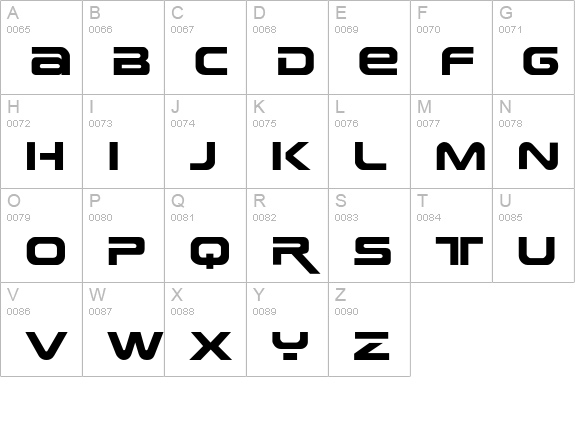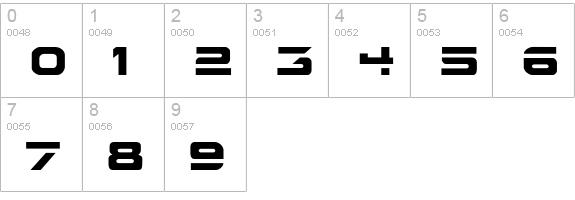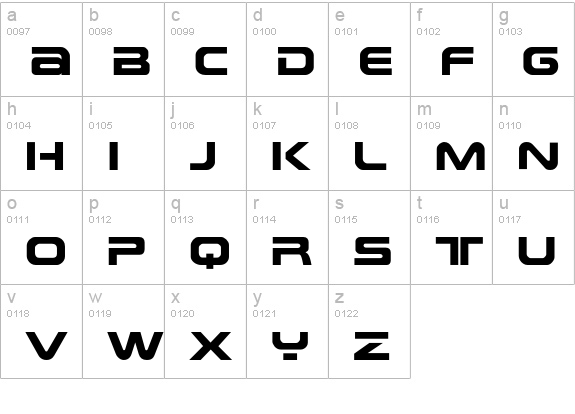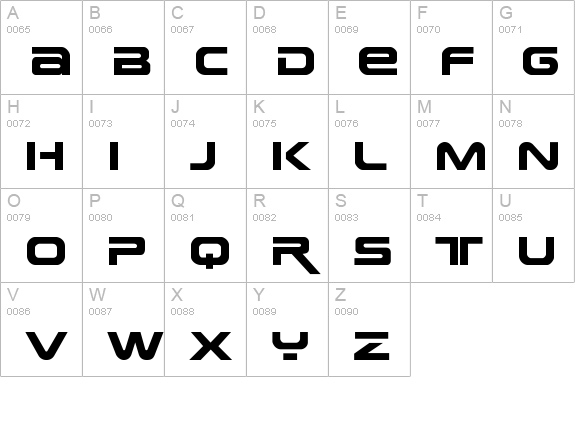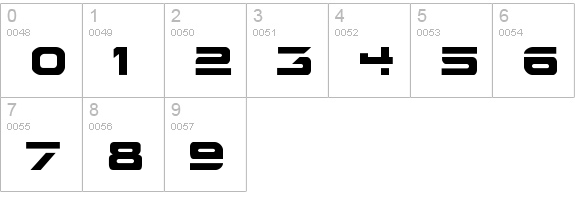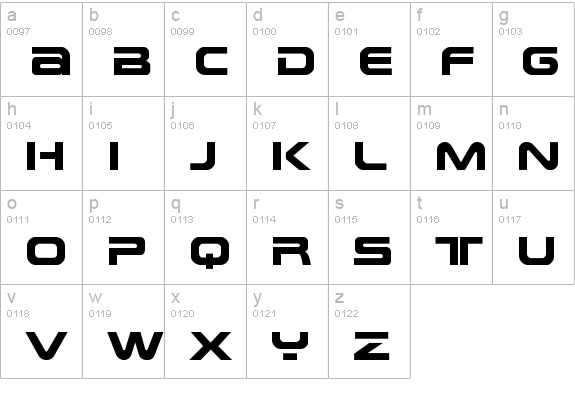
Introducing Earth font, a remarkable typeface that effortlessly captures the essence of our beloved planet. With its harmonious curves and carefully crafted letterforms, Earth font exudes a sense of grace and elegance that is both timeless and captivating. Designed with versatility in mind, Earth font seamlessly adapts to a wide range of design projects, making it the perfect choice for everything from branding materials to editorial designs, websites, and beyond. Its clean lines and balanced proportions ensure legibility across various mediums, while adding a touch of sophistication to any visual composition. What sets Earth font apart is not only its captivating design, but also the fact that it is freely available to download at FontsMarket.com. This means that anyone, from professional designers to passionate enthusiasts, can access and utilize this incredible typeface without any restrictions. Whether you're looking to add a touch of elegance to your next project or seeking a versatile typeface that stands out from the crowd, Earth font is sure to exceed your expectations. Download it today from FontsMarket.com and let your creativity soar to new heights with this exceptional free font.